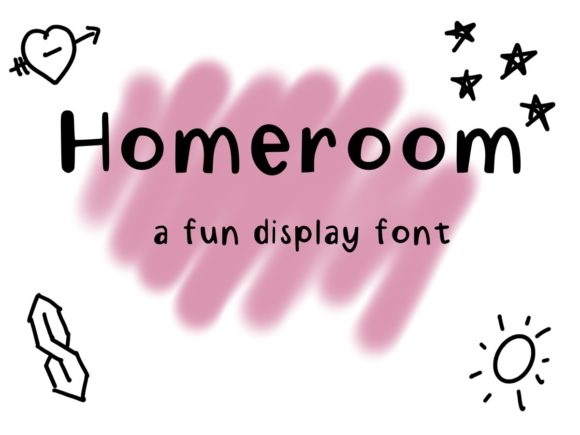
**Step into the Classroom of Creative Excellence with Homeroom Font!**
Unleash the whimsical magic of Homeroom, a display font that's as charming as a crayon drawing and as neat as a lined notebook. Step into a world of limitless possibilities, where your words dance across the page with playful innocence and endless flair.
Homeroom's playful curves and enchanting simplicity will capture hearts with its undeniable charm. It's the perfect companion for your creative adventures, effortlessly elevating every project with its unique personality.
Whether you're crafting heartwarming notes, designing eye-catching posters, or adding a touch of whimsy to your digital designs, Homeroom has got you covered. Its versatility knows no bounds, making it a must-have in any font library.